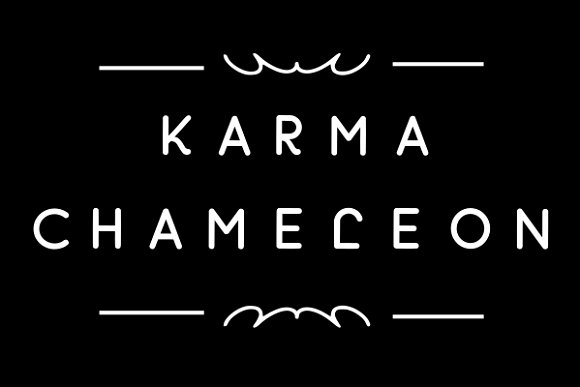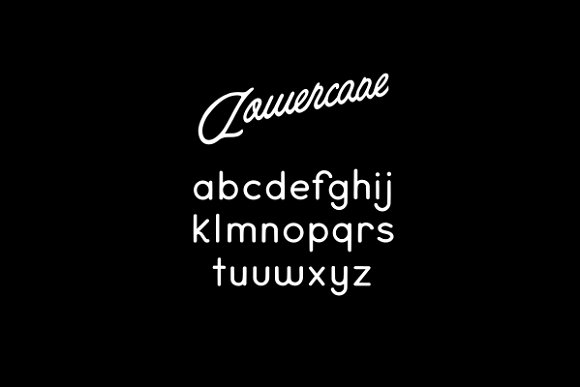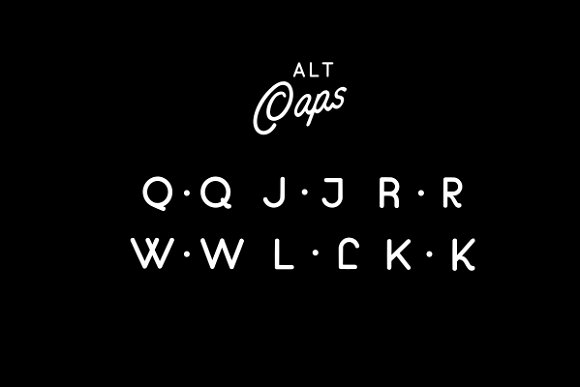
Introduction to Frank Font
As a designer, have you ever been stuck on a creative project because you couldn’t find the perfect font to match your vision? You’re not alone. We’ve all been there – scrolling through design resources, searching for that one font that will elevate our work to the next level. For me, that moment came when I stumbled upon the Frank Font, a bold and versatile font that changed the game.
With its striking design and range of alternate characters, the Frank Font is a game-changer for designers looking to add a touch of personality to their work. Whether you’re working on a high-quality brochure or creating a design element for a website, the Frank Font is a valuable resource that will help you stand out from the crowd.
But what really sets the Frank Font apart is its high-quality design and transparent background, making it a dream to work with. And the best part? It’s available for free download, making it an accessible design resource for designers of all levels.
Key Features of Frank Font
- Frank Font is designed to be highly versatile, suitable for a wide range of applications, from digital to print media.
- Unique characteristics include elegant lines, refined details, and a modern aesthetic, making it a popular choice among designers.
Honest Review: Frank Font
I recently stumbled upon the Frank Font while searching for a design resource for a creative project. As a designer, I was excited to dive in and see what this font had to offer.
Here are some of the things that work well with Frank Font: ✨
- High-quality design: The font is well-crafted, with clean lines and a modern aesthetic.
- Transparent background: The font is designed with a transparent background, making it easy to use in a variety of design contexts.
That being said, there are a few limitations to consider: ⚠️
- Limited customization options: While the font is well-designed, it’s not particularly customizable.
- No bold or italic weights: If you need to use a bold or italic version of the font, you may be out of luck.
Overall, I’m impressed with Frank Font and would recommend it to designers looking for a high-quality, free font for their creative projects. While it may have some limitations, it’s a great addition to any design library.
Frank Font: A High-Quality Design Resource
Tips for Getting the Most Out of Frank Font
To get the most out of Frank Font, use it in conjunction with other design resources, such as images and graphics. Experiment with different font sizes, colors, and styles to create unique and eye-catching designs. Additionally, consider using Frank Font in a transparent background to create a more subtle and sophisticated look.
Common Use Cases for Frank Font
Frank Font is a great choice for a wide range of creative projects, including social media graphics, presentations, documents, and more. Its high-quality design and transparent background make it a versatile and effective design resource.